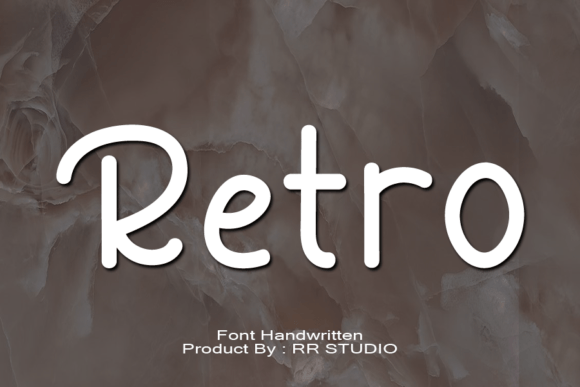
Retro Font
About Retro Font
Retro is a stylish and incredibly elegant handwritten font. It looks stunning on wedding invitations, thank you cards, quotes, greeting cards, logos, business cards and every other design which needs a handwritten touch.
It is suitable for logotype, headline font, in corporate identity, brand identity, apparel industry, poster, music, movie, game, magazine, book, comic, cartoon, YouTube, Instagram, website, or any of your creative design projects